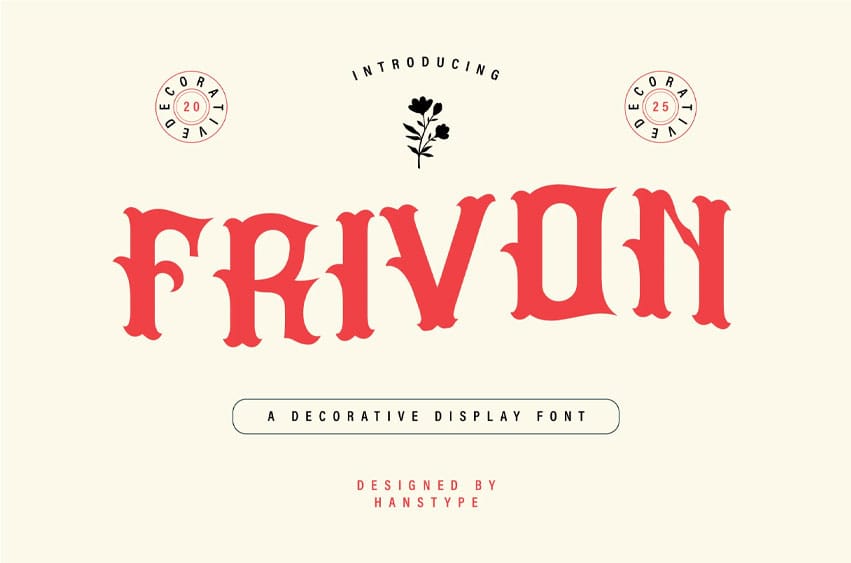
Frivon Font is a decorative font that combines artistic flair with intricate design. Its unique style features elaborate details, making it perfect for creative and eye-catching projects.
The bold, yet playful curves and shapes give Frivon a whimsical and dynamic feel, ideal for branding, invitations, posters, and other designs that demand attention.